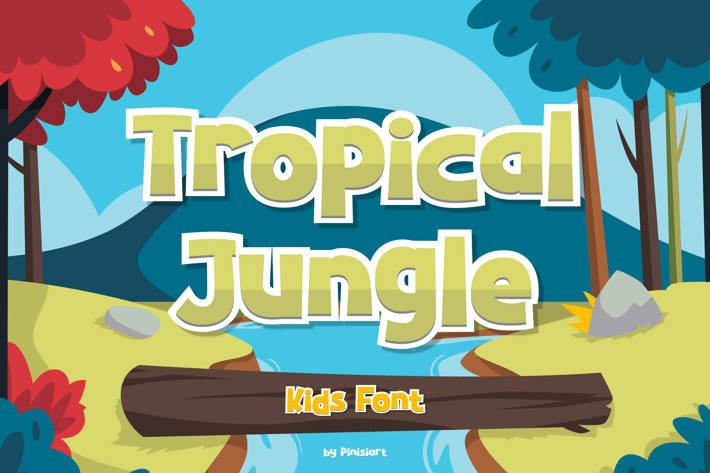
Tropical Jungle – Kids Font
The woods sometimes look so scary with its dense foliage, but not this time. Tropical Jungle bring all that fresh breeze of oxygen and wet land smell directly to your audiences.
Suit perfectly for tropical themes books market, adventure themes online games, stationary, school supplies font, poster, birthday invitation, youtube covers, youtube thumbnails, social media page covers and so on...